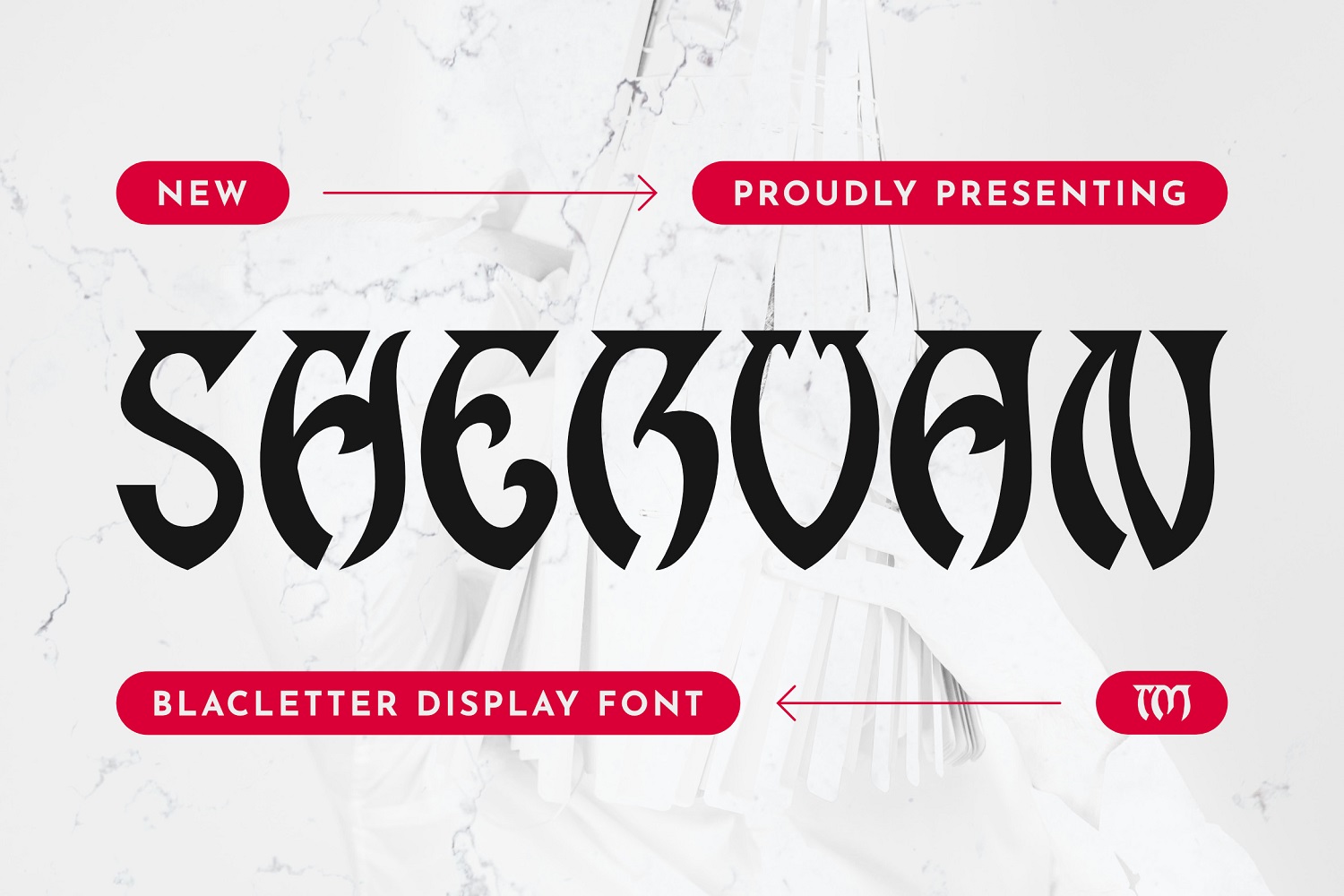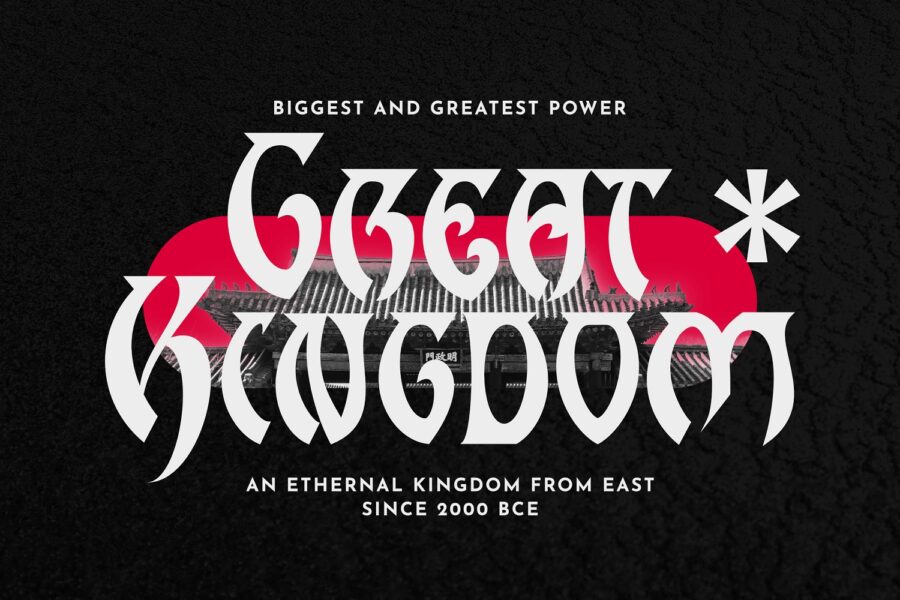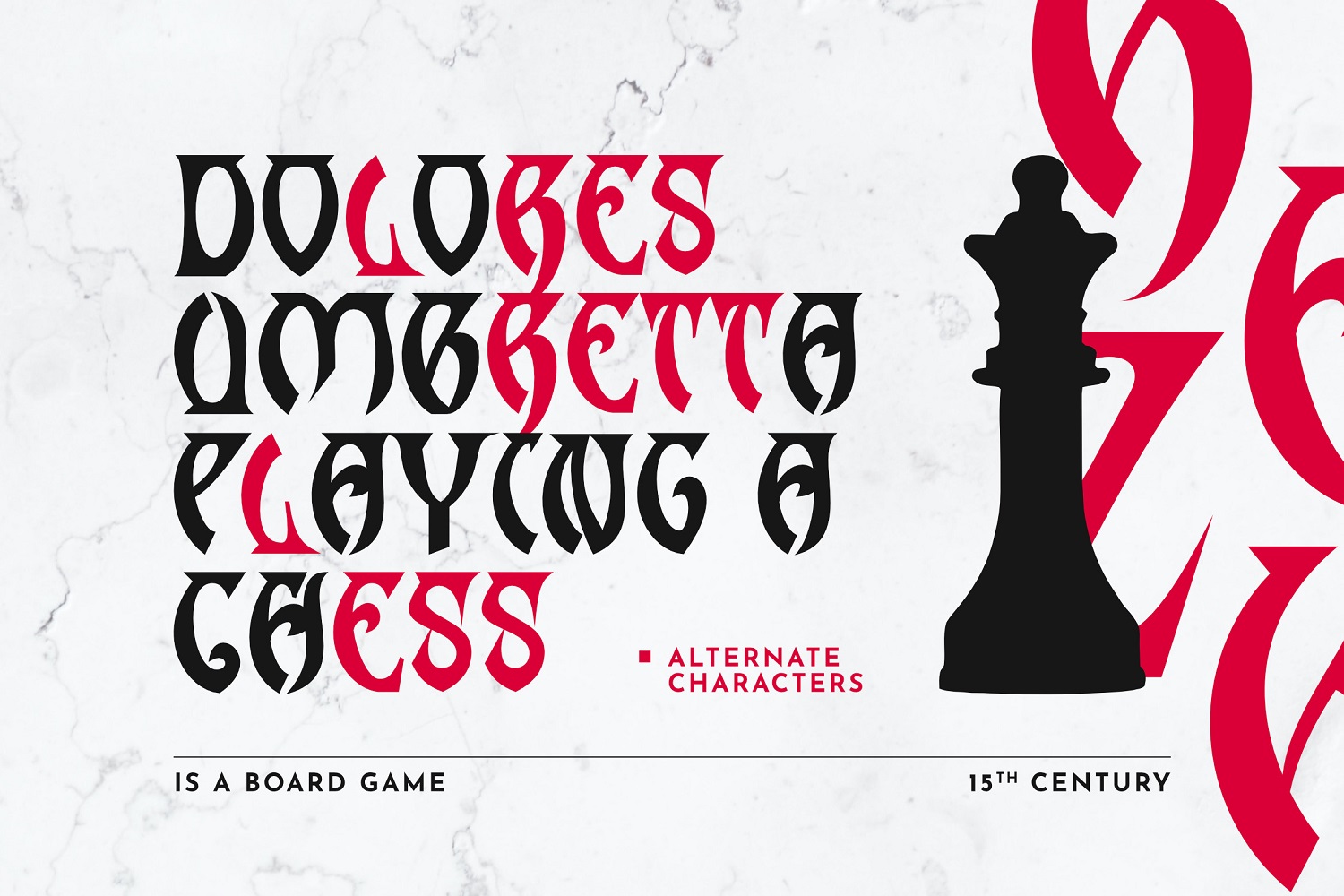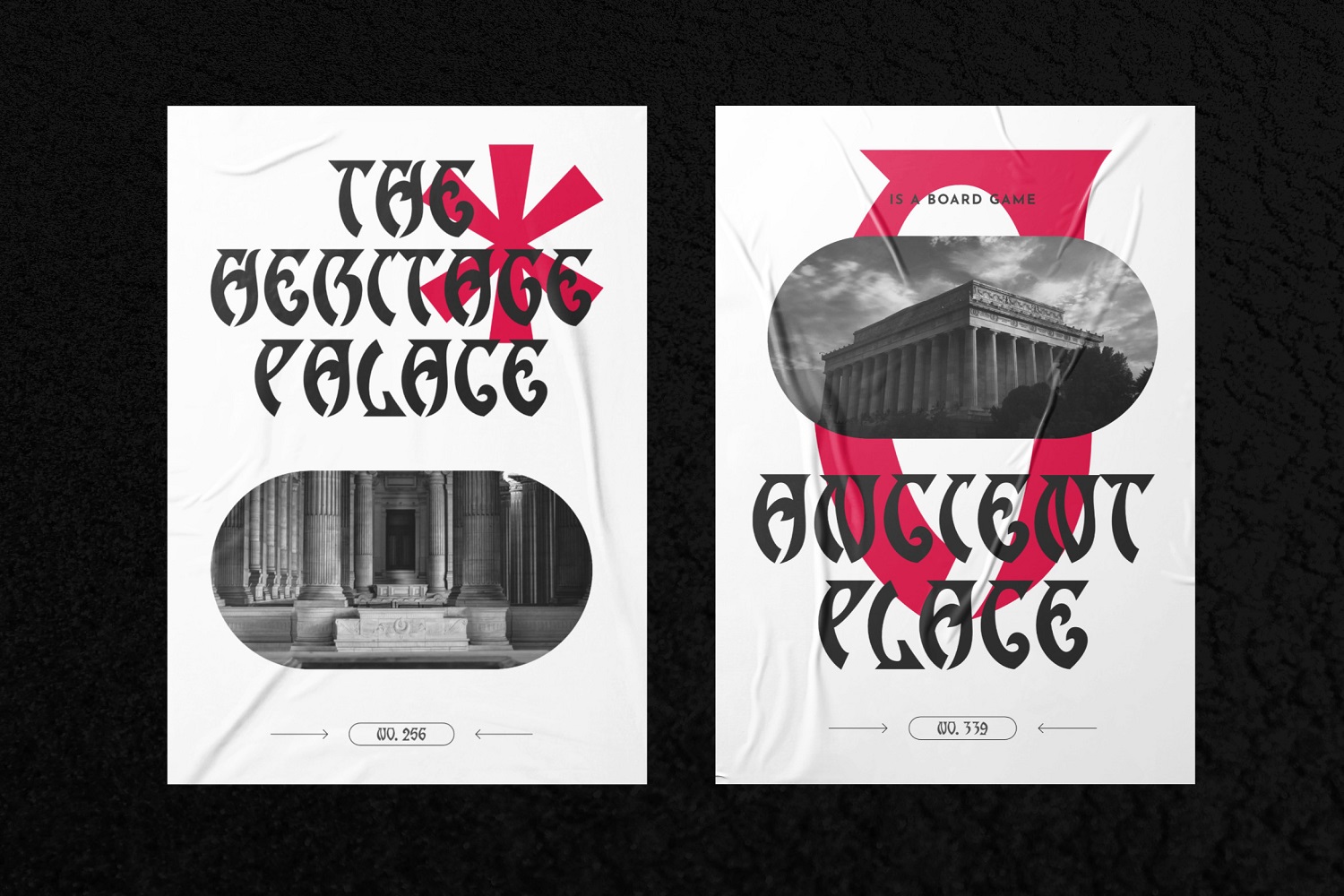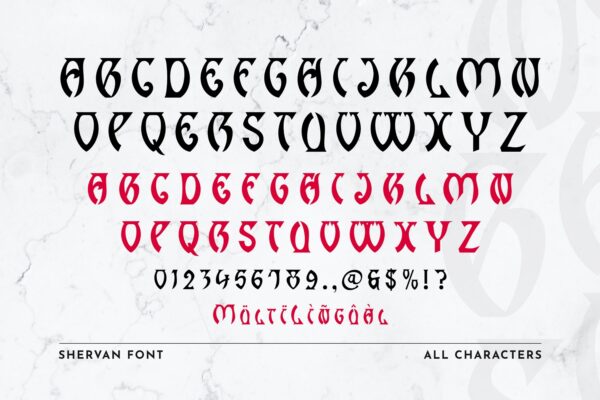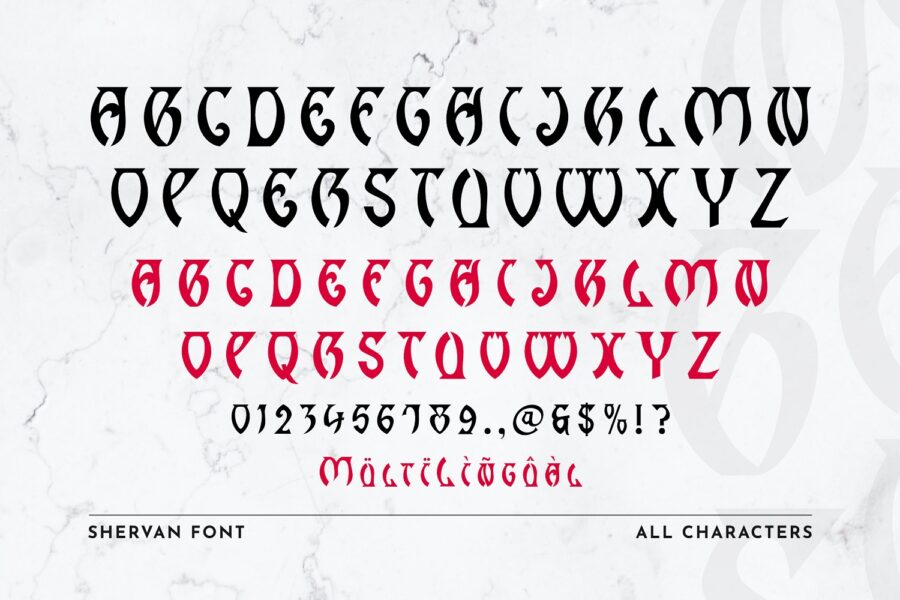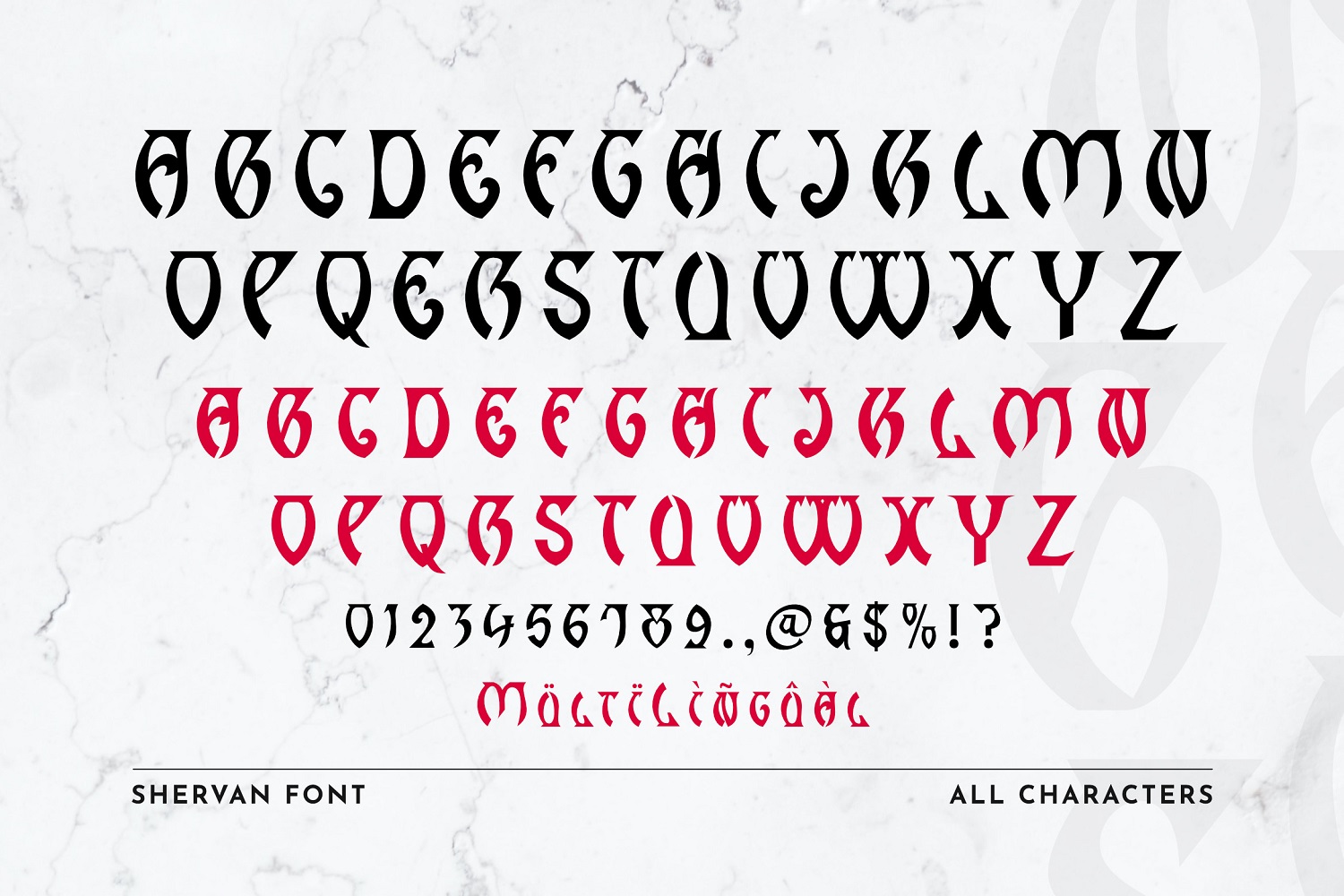
Shervan is a bold blackletter display font that blends gothic elegance with modern versatility. Its sharp strokes and ornamental curves make it perfect for creating striking headlines, historical branding, board game titles, or any design requiring a sense of power and legacy. The font showcases a unique balance of tradition and innovation, enhanced with alternate characters and multilingual support.
Whether you’re designing themed posters, logos, editorial titles, or packaging, Shervan brings a timeless, majestic character to your typography. With uppercase sets, numerals, punctuation, and stylistic alternates, this typeface offers full creative flexibility for branding, editorial design, and cultural projects.
Shervan